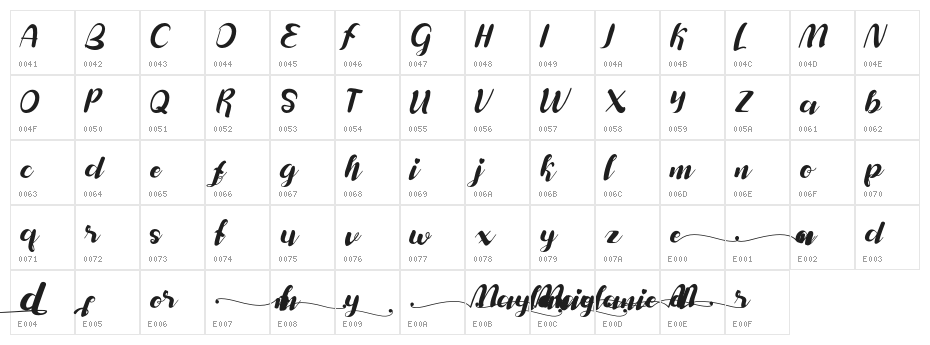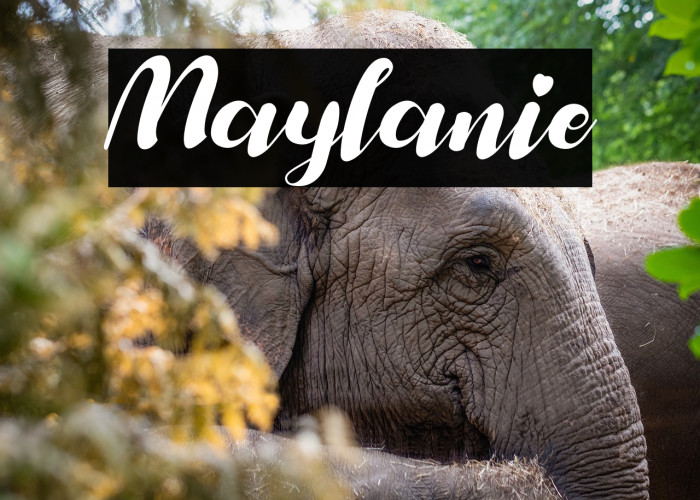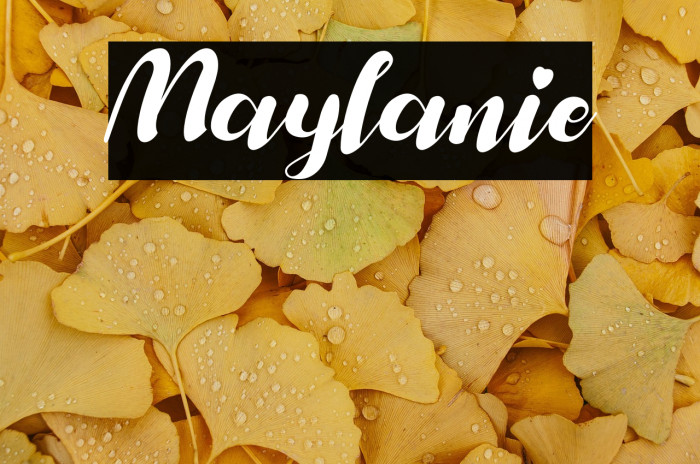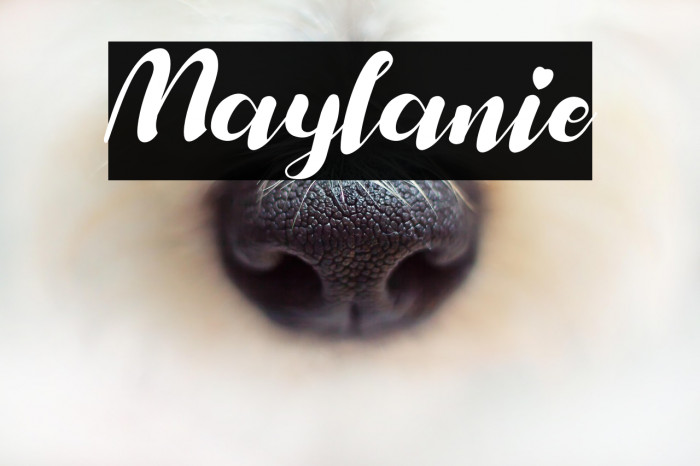
Maylanie Font
Maylanie Description
This font features a flowing, cursive style with elegant, sweeping lines that give it a sophisticated and artistic appearance. The uppercase letters are bold and dynamic, with a slight slant that adds a sense of motion and grace. The lowercase letters maintain a consistent flow, connecting smoothly with each other, which enhances readability while preserving the decorative flair. The overall design is reminiscent of calligraphy, making it suitable for projects that require a touch of elegance and creativity. The absence of special characters suggests a focus on alphabetic text, ideal for titles and headings.
| Proposed Projects | Ideal for wedding invitations, elegant branding, artistic posters, and decorative headings. |